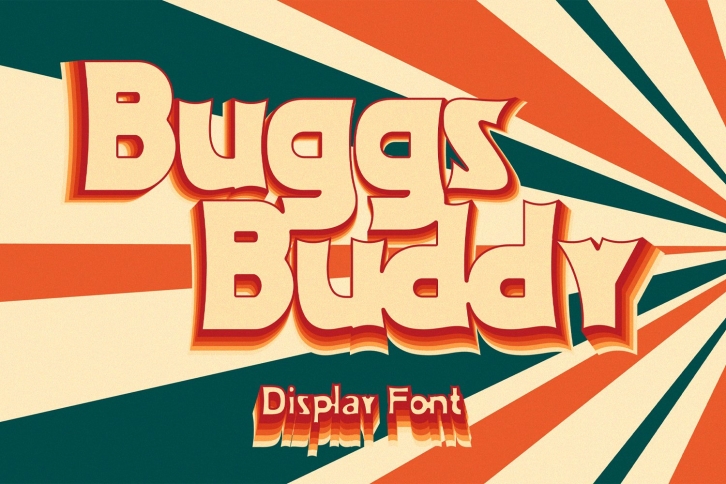
Buggs Buddy is a beautiful font that was designed by Ceeskiiw. It's a great choice for designers and creatives who need such a font. It was released on November 9, 2022 and the file size is 13.13 MB. Buggs Buddy may give a more youthful, expressive and casual look to your project. It is a very beautiful, refined, elegant, and high-quality font.